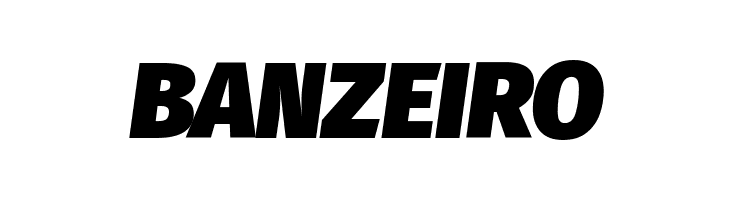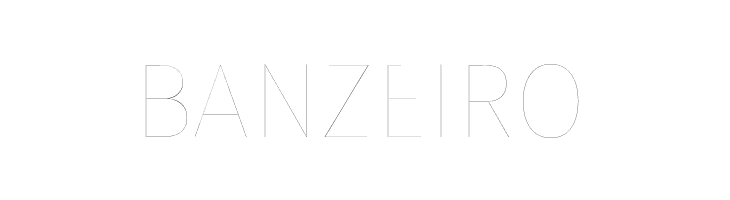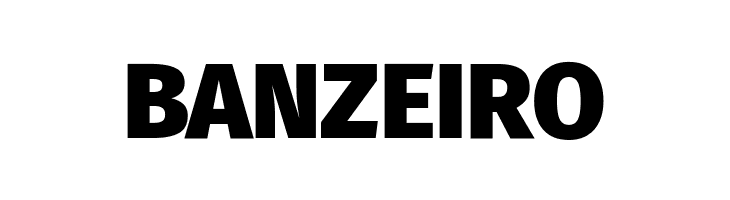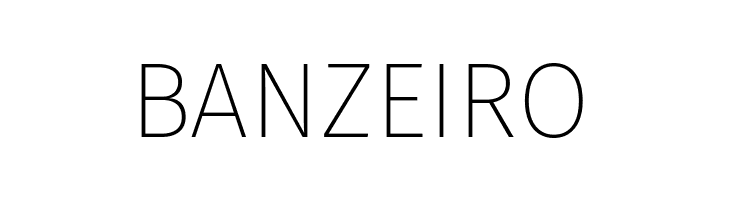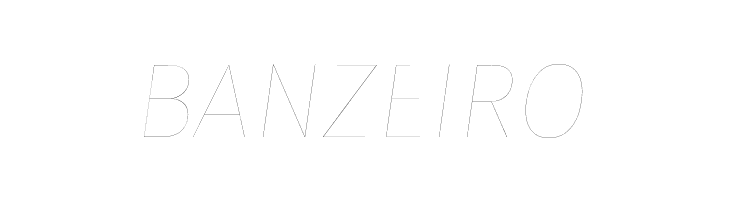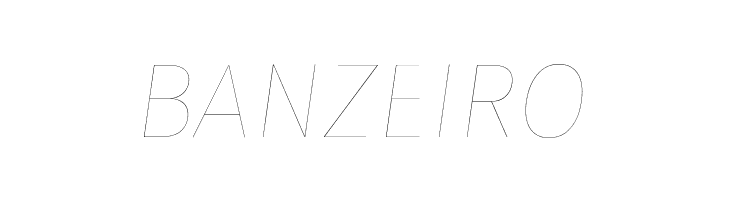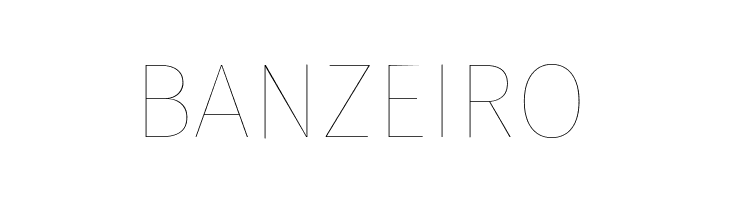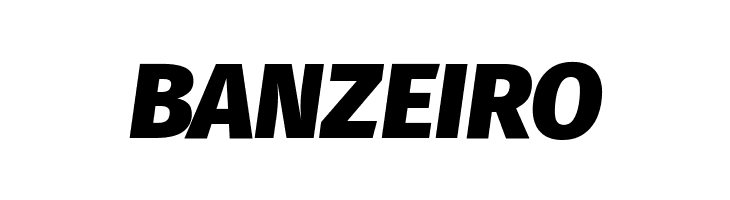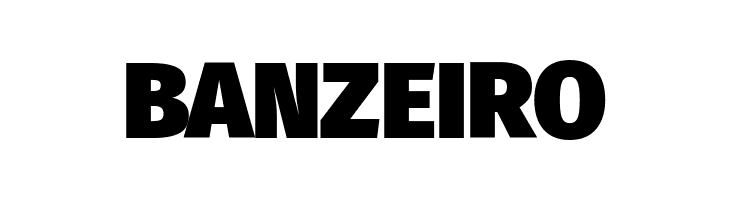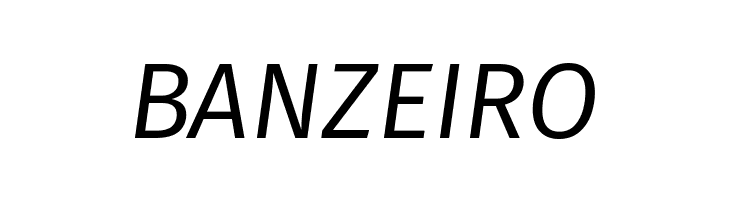
A bold, angular font with a dynamic, forward-leaning design.
A modern, geometric sans-serif font with excellent readability.
A modern, italic sans-serif font with clean lines and excellent legibility.
A modern, condensed sans-serif font with an elegant italic style.
A modern, condensed italic font with a sleek, minimalist design and low contrast.
A modern, condensed italic font with a sleek and uniform appearance.
A sleek, modern, and condensed italic font with a light weight and tight spacing.
A bold, condensed, and italic sans-serif font with a modern flair.
A sleek, modern, and condensed italic font with consistent stroke thickness.
A bold, condensed, ultra-italic font with strong visual impact.
A sleek, ultra-light, condensed italic font with a modern and elegant style.
A clean, modern sans-serif font with a minimalist design.
A modern, italic sans-serif font with light weight and low contrast.
A modern, italic sans-serif font with a light weight and low contrast.
A modern, light sans-serif font with a clean and minimalist design.
A sleek, modern italic font with thin strokes and elegant slant.
A bold, modern sans-serif font with a strong presence.
A bold, italic sans-serif font with a dynamic and modern style.
A bold, modern sans-serif font with high contrast and strong presence.
A bold, italic sans-serif font with a dynamic and modern style.
A modern, ultra-light sans-serif font with clean lines and high legibility.